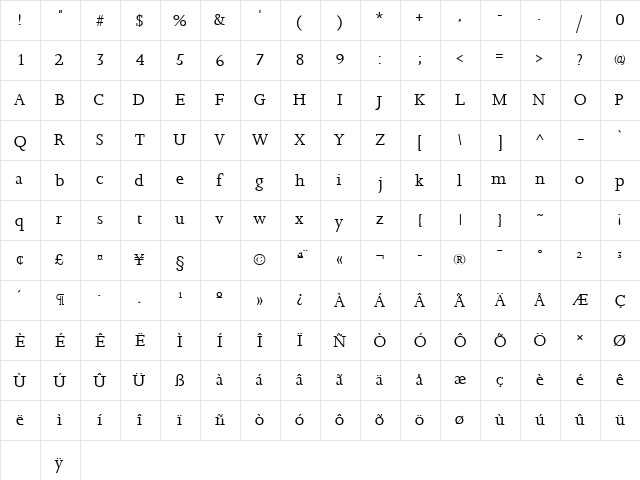
ConfirmaSSK Regular
Design Context for ConfirmaSSK Typeface
ConfirmaSSK takes a measured approach to typography — its balanced proportions and neutral character make it a reliable workhorse for both digital and print work.